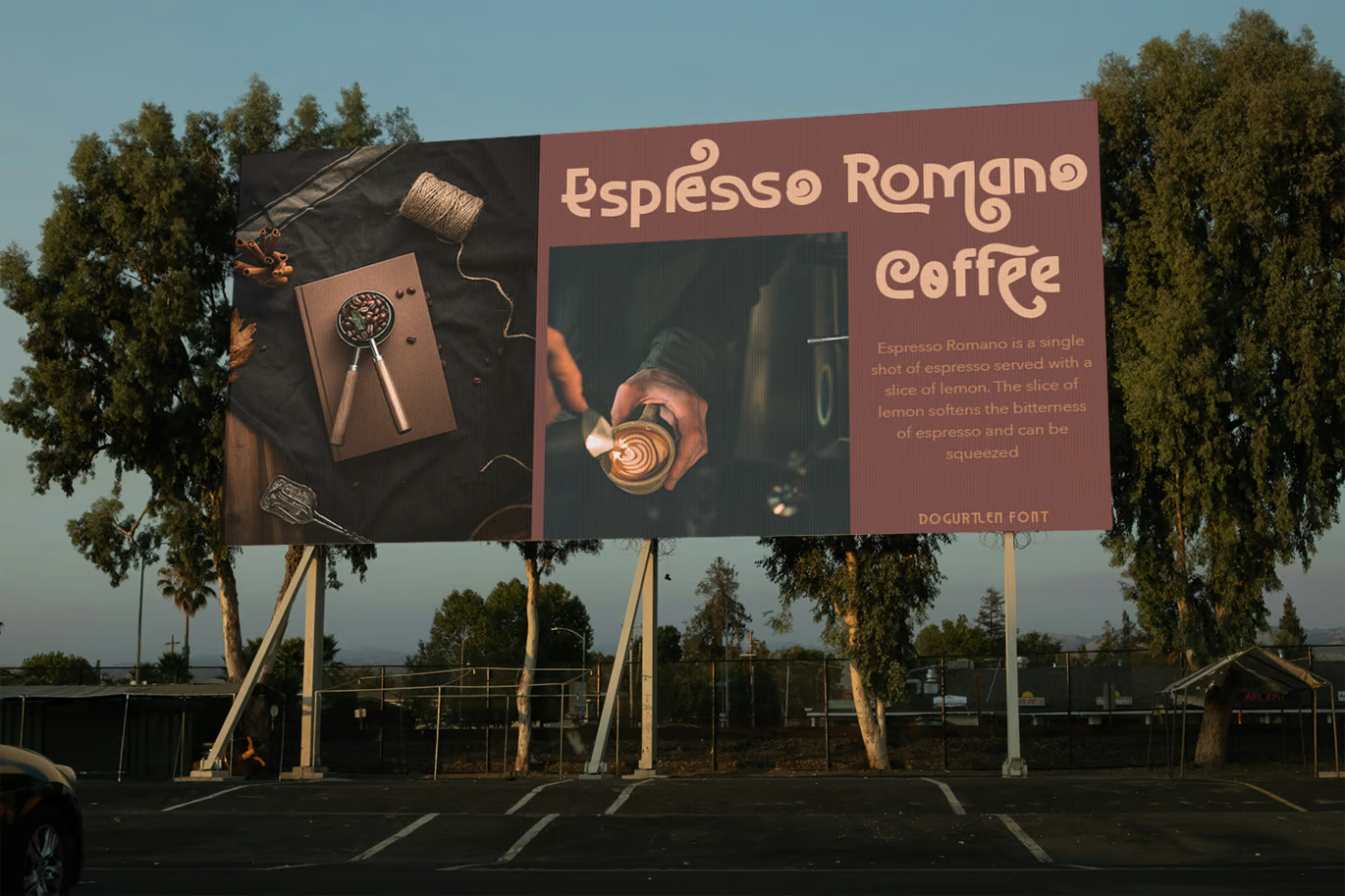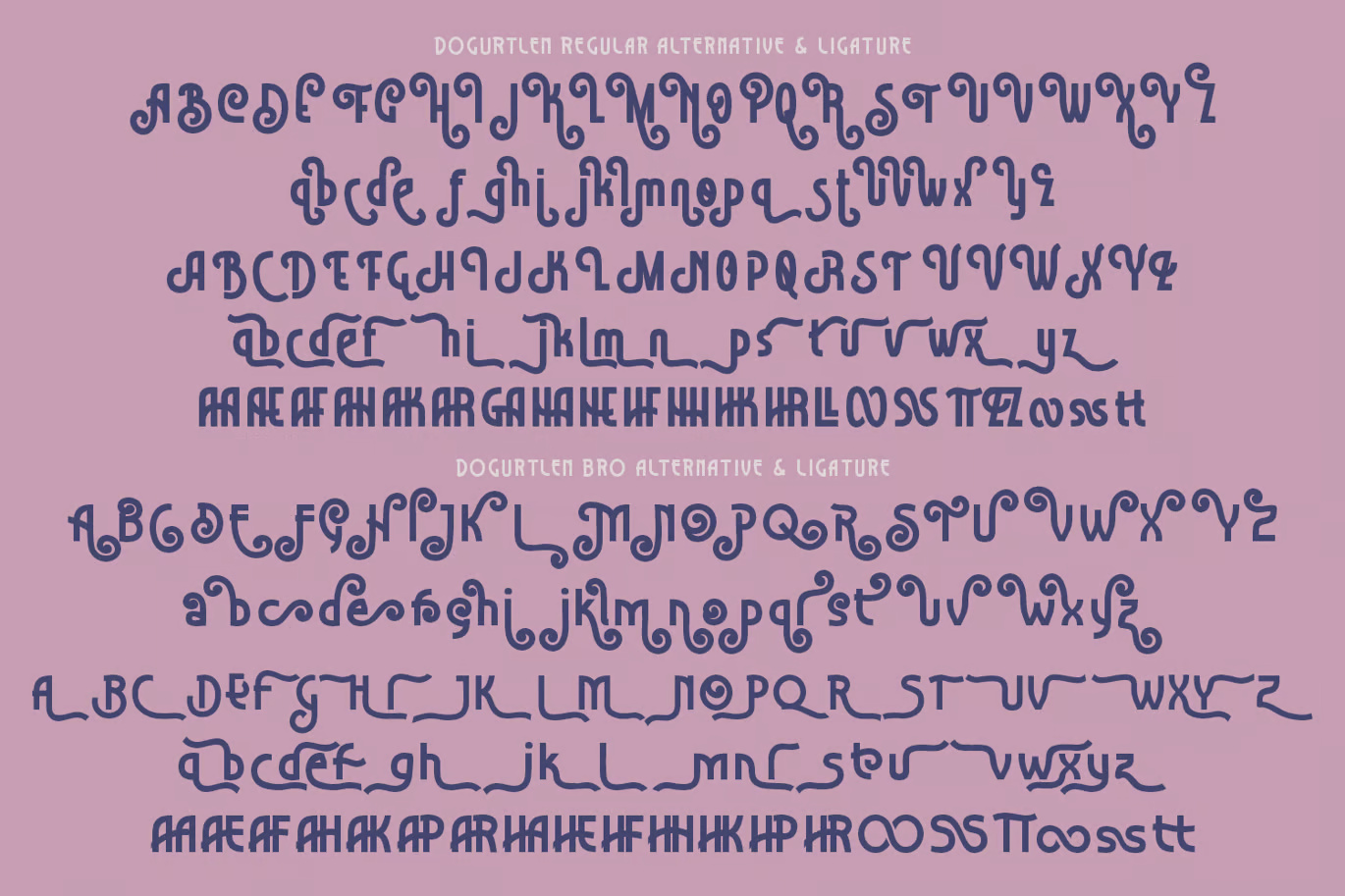
Dogurtlen Art Deco Font
Dogurtlen is a stylish Art Deco font duo with a unique, luxurious, and elegant look. It features varying widths, curly alternates, and ligatures, allowing for creative combinations to achieve the perfect design. Ideal for classic-themed projects, Dogurtlen is perfect for magazines, headlines, branding, book covers, logos, packaging, and more.
Dogurtlen Sans-Serif Art Deco Font